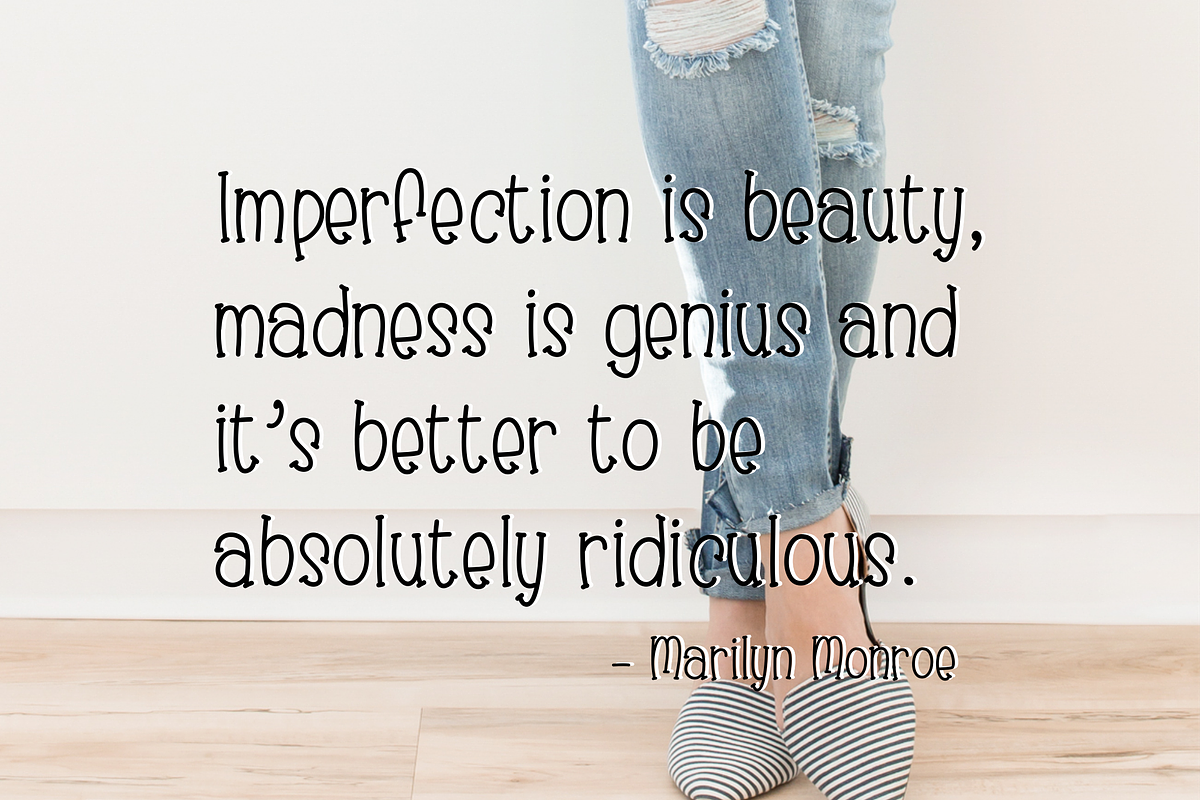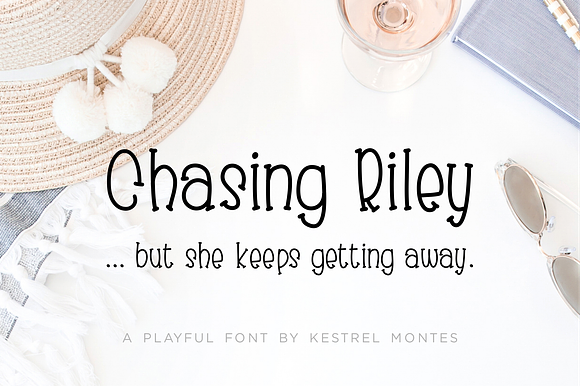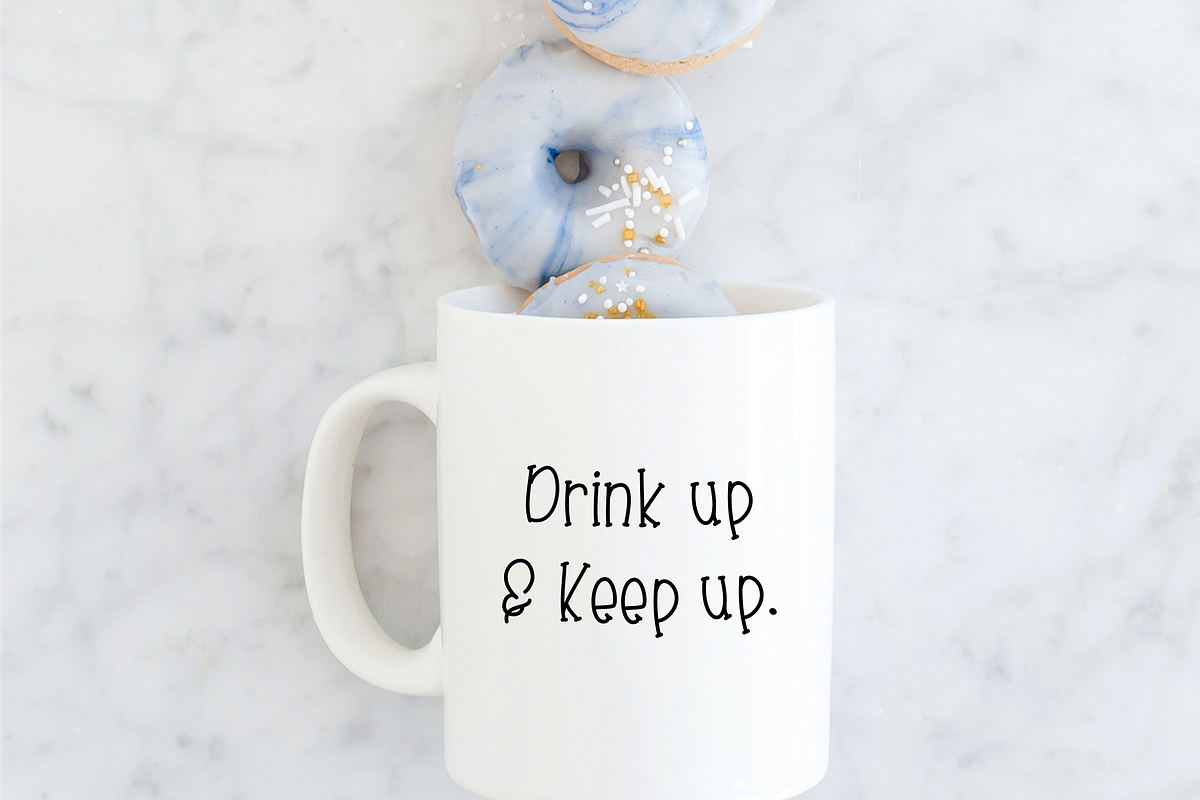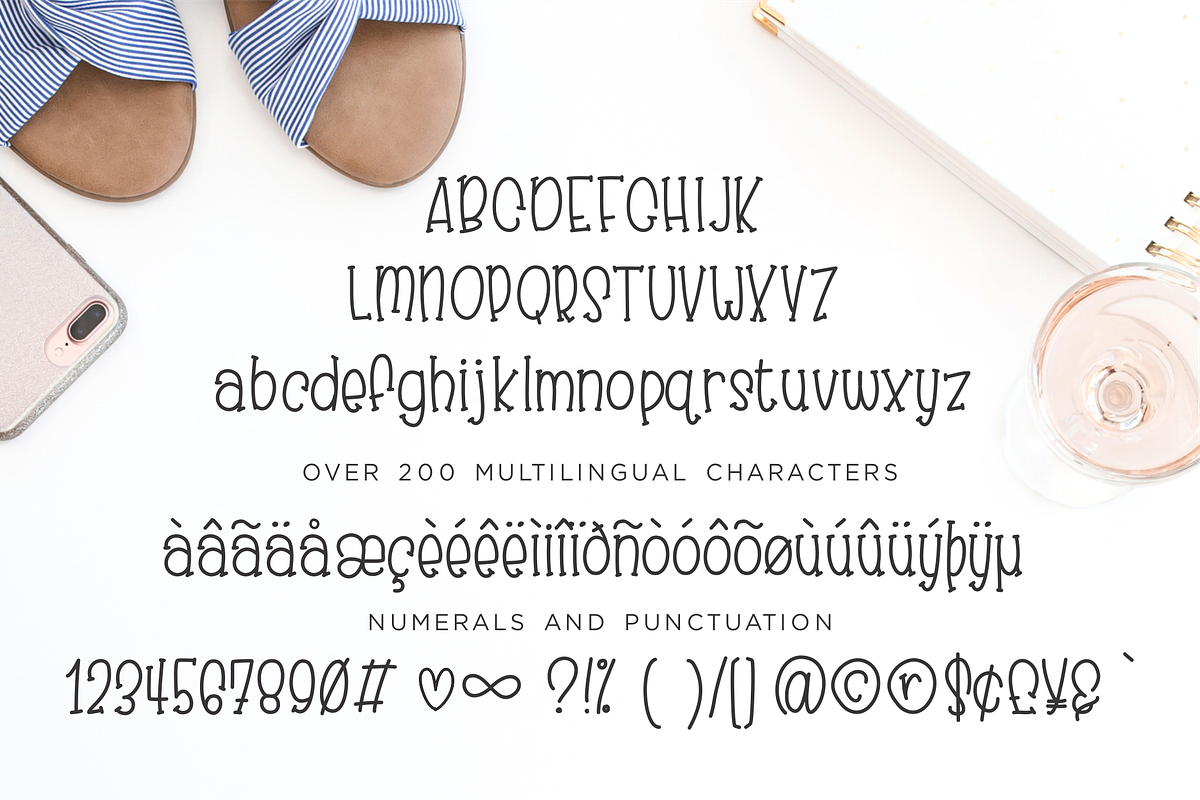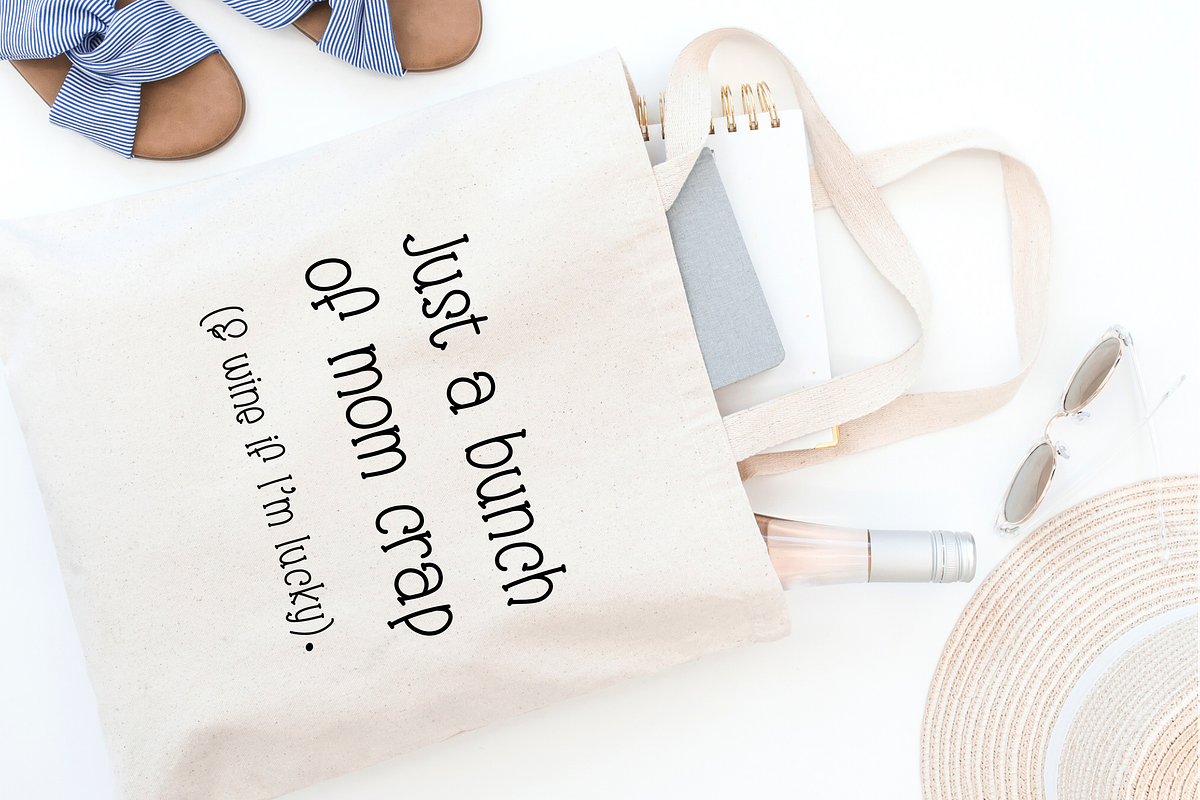
Chasing Riley By Kestrel Montes
Chasing Riley is modern monoline hand-lettered font by Kestrel Montes. The bouncing playfulness adds an element of happiness and excitement to your projects.
• 326 characters including lots of multilingual characters and punctuation